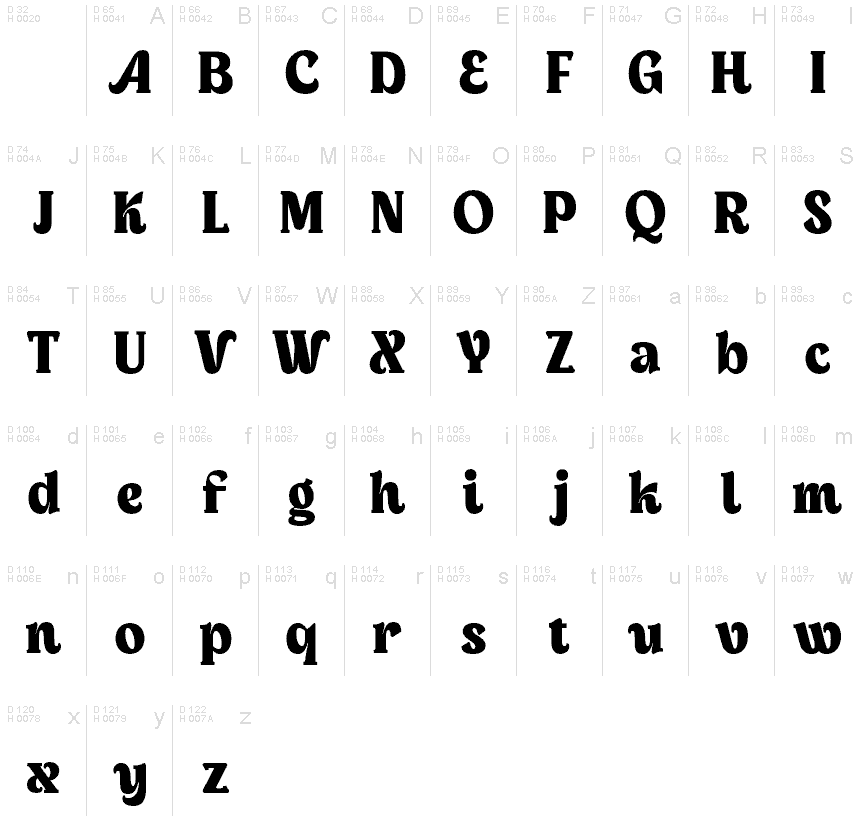
CS Asteria Demo Regular
CS Asteria font by Craft Supply Co. is an elegant, bold serif typeface whose classic influences combine for a polished, sophisticated look. The refined design has an authoritative appearance defined by slightly curved details and abrupt finishes. This impactful pairing fits seamlessly into any professional context for a timeless effect.